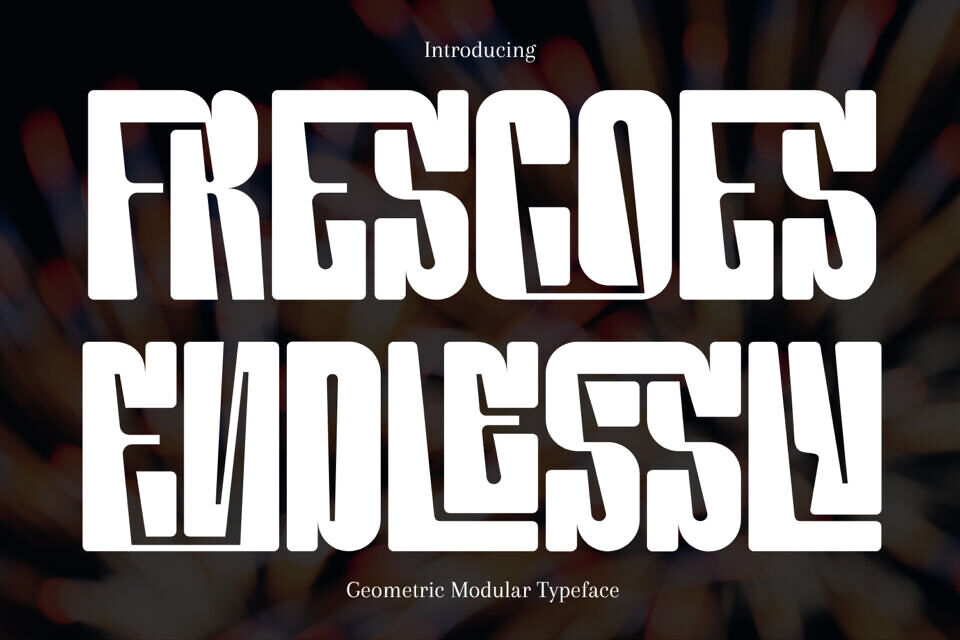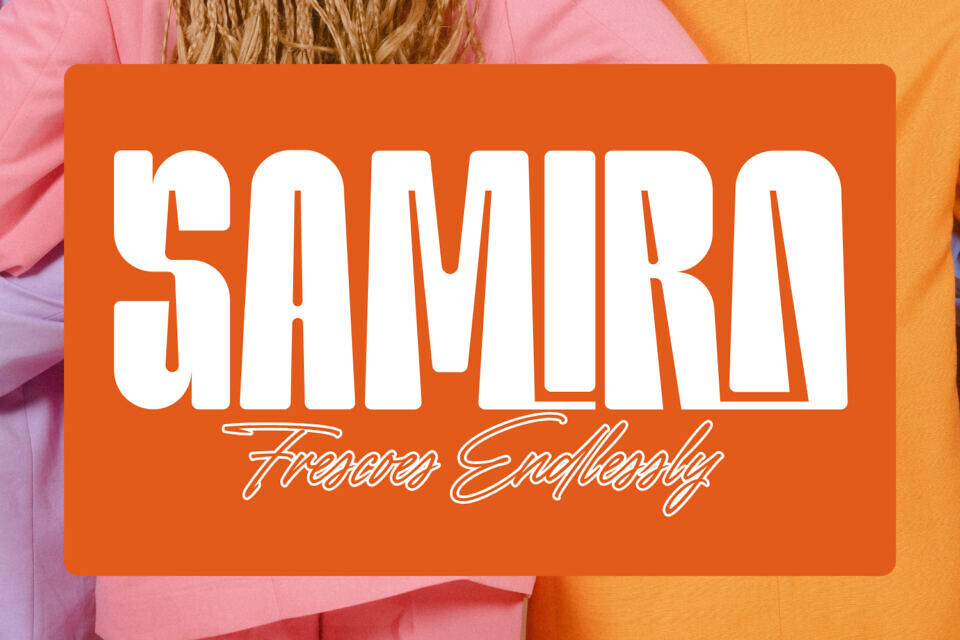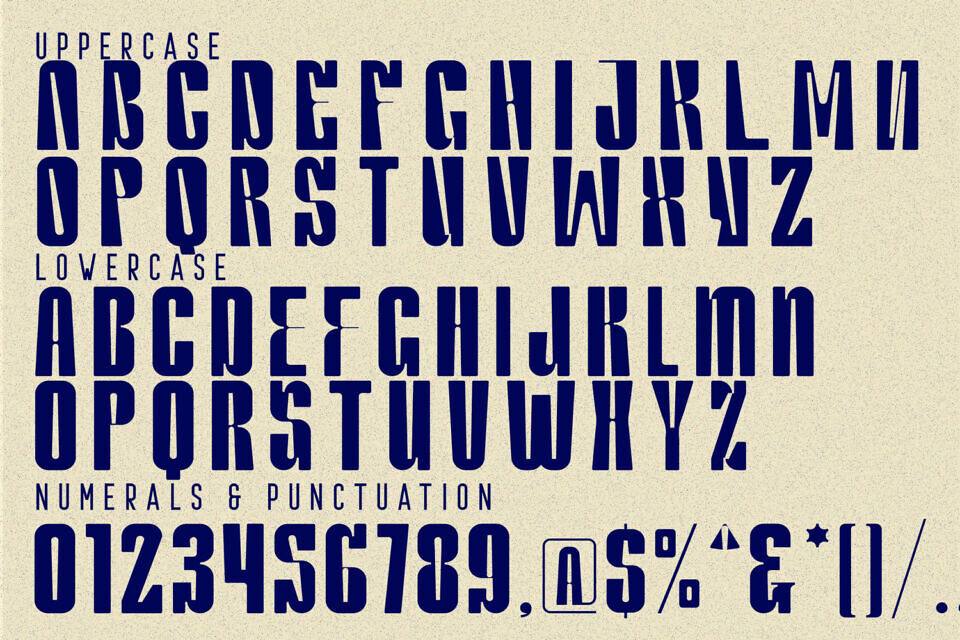
Frescoes Endlessly Font
Frescoes Endlessly – Condensed Font – is a Bold Modular Experimental Display Font, a bold modular experimental display font built from heavy geometric blocks and sharp internal cuts. Its ultra-thick forms, condensed proportions, and sculpted negative spaces create a powerful graphic rhythm that feels modern, dynamic, and unapologetically expressive.
Each character is crafted with a unique carved-out structure, giving the font a distinctive motion-like effect that instantly grabs attention. Perfect for posters, album covers, branding, streetwear designs, titles, editorial layouts, and any project that needs a striking, modern, and fearless typographic identity, Frescoes Endlessly brings raw visual impact to every composition.